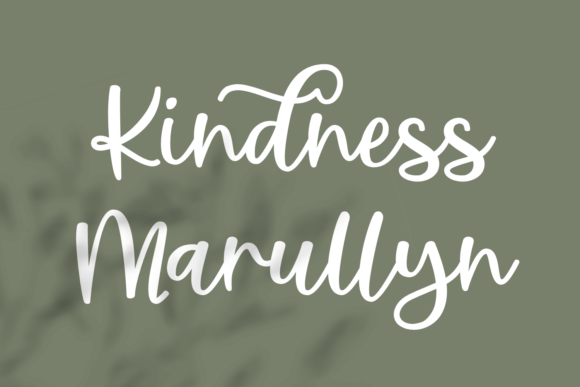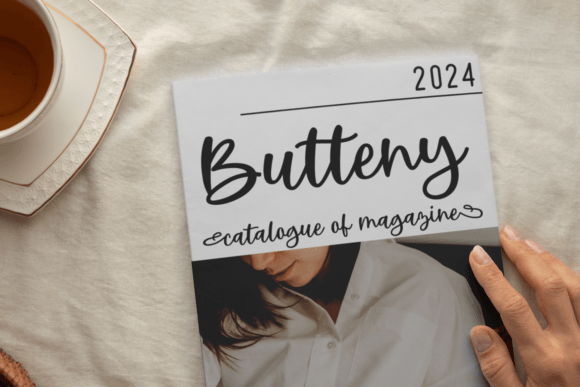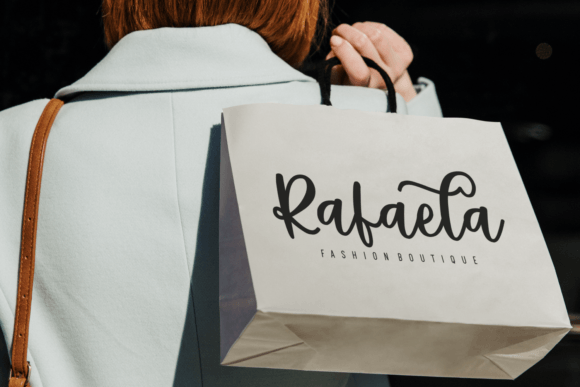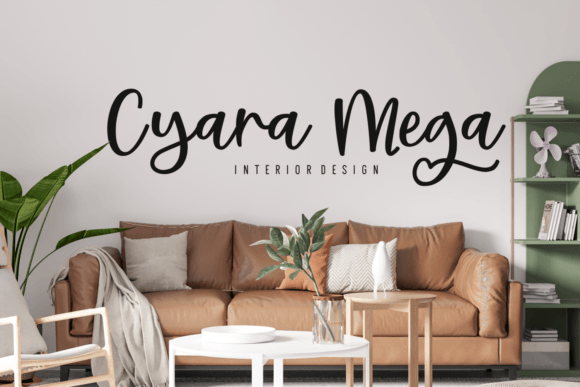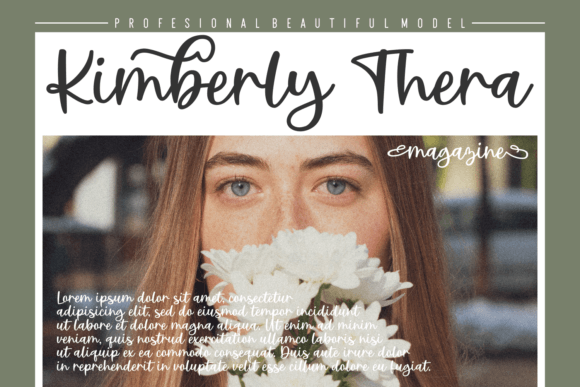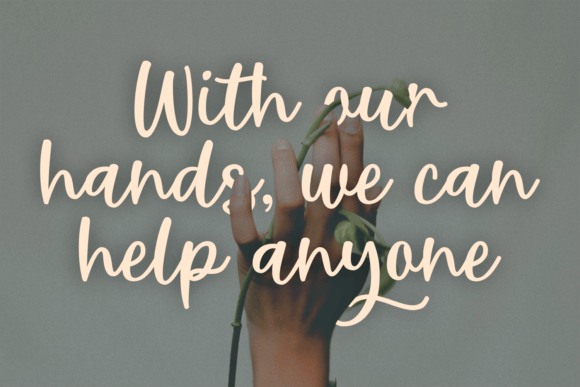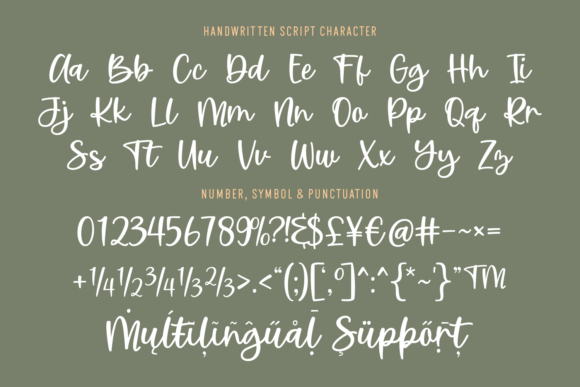
Adding a Touch of Sophistication to Your Designs
There’s something special about receiving a beautifully crafted invitation or card – the way the paper feels, the intricate details, and the elegant handwriting that adds a personal touch. For designers, creating that special moment is what it’s all about. Whether you’re working on a wedding invitation, a baby shower card, or a special birthday message, the right font can make all the difference.
That’s where the Kindness Marullyn Font comes in – a beautiful and elegant script font that adds a touch of sophistication and elegance to any design. With its light, airy feel and intricate details, this font is the perfect choice for adding a special touch to your projects. Whether you’re a seasoned designer or just starting out, the Kindness Marullyn Font is a valuable addition to your toolkit.
With its PUA encoded features, accessing all glyphs and swashes is effortless, making it a breeze to create stunning designs that will leave a lasting impression. Whether you’re working on a personal project or a commercial design, the Kindness Marullyn Font is the perfect choice for adding a touch of kindness and elegance to your work.
Kindness Marullyn Font Key Features
- Font Family: Kindness Marullyn Font
- Font Style: Script, Handwritten
- Unique Characteristics: Includes 500+ glyphs, supports Latin, Cyrillic, and Greek alphabets, and features a distinctive, cursive handwriting style with flourishes and connecting strokes.
Designer Review: Kindness Marullyn Font
I recently had the chance to work with the Kindness Marullyn font, and I must say it’s a unique and interesting addition to any design project. ✨ Here are a few things that work well:
- It’s perfect for creating a warm and inviting atmosphere, especially for designs related to family, relationships, or wellness.
- The font is highly legible, even at smaller font sizes, which makes it ideal for body text.
- It’s a great choice for creating a sense of elegance and sophistication, particularly when used in combination with other high-end fonts.
- The font may not be the best choice for designs that require a modern or minimalist aesthetic, as it can feel a bit too ornate.
- It may not be suitable for designs that require a lot of text, as it can be a bit too busy and overwhelming.
- The font is not as versatile as some other options, and it may not work well in all languages or character sets.
Overall, I think the Kindness Marullyn font is a great choice for designers who want to add a touch of warmth and elegance to their projects. It’s not perfect, but it’s a unique and interesting option that can help set your designs apart.
Getting the Most Out of Kindness Marullyn Font
To get the most out of Kindness Marullyn Font, use it in contexts that require a friendly and approachable tone.
– Marketing materials and brochures
– Personal branding and logos